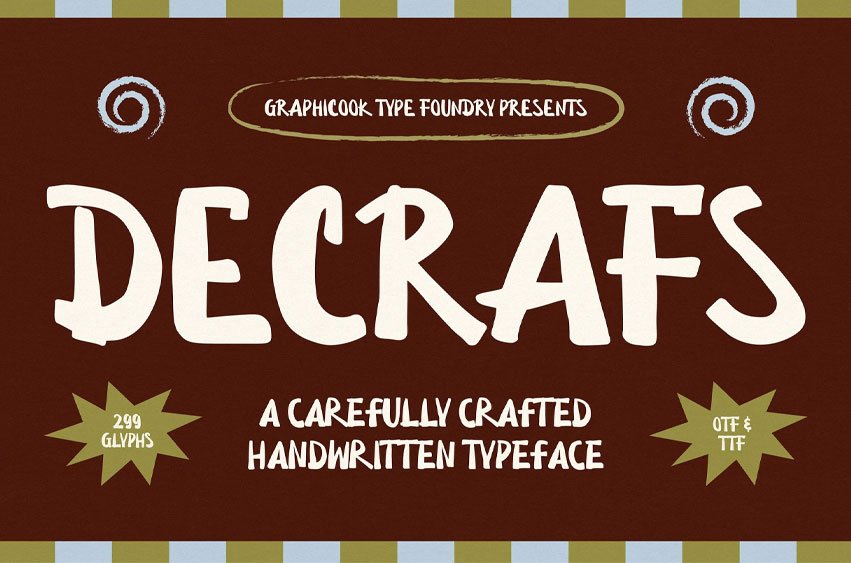
Decrafs Font is a handwritten display font with bold, organic, and slightly irregular strokes that give it a natural, warm, and friendly feel. Its expressive and relaxed character adds a lively, personal touch, making it ideal for headlines, branding, packaging, posters, and creative content.
It is perfect for headlines, logotypes, magazines, packaging, quotes, movies, games, cover albums, book covers, and flyers, it’s a perfect solution for creating eye-catching designs that stand out in any context.